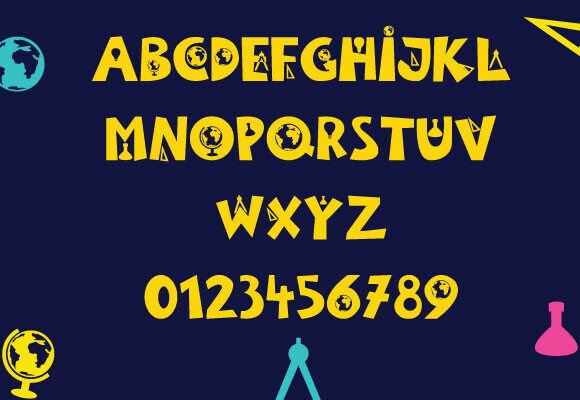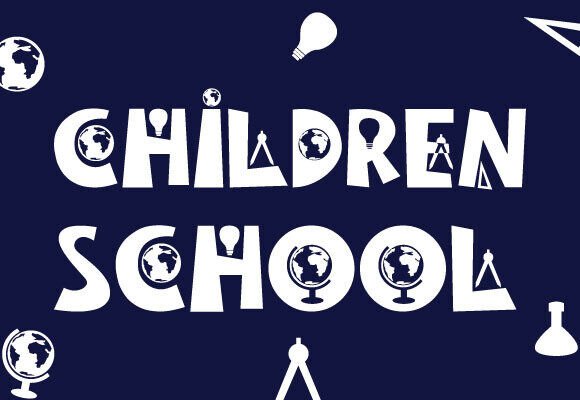
Introduction to Children School Font
Introducing the delightfully enchanting “Children School” Font.
Crafted with the essence of playful innocence and childhood whimsy, it mirrors the charming vibrancy of a child’s imaginative mind The “Children School” Font takes inspiration from the youthful universe of handwritten letters and doodles, creating a delightful repertoire of characters that burst with merriment.
Key Features of Children School Font